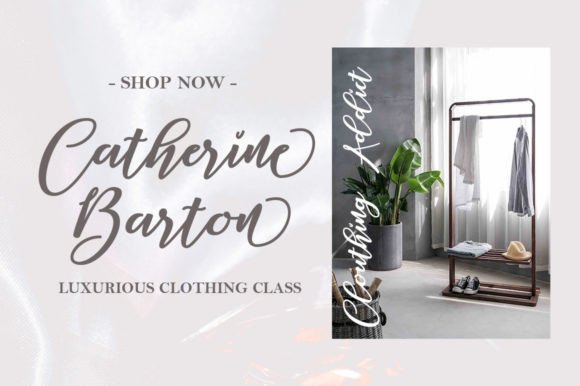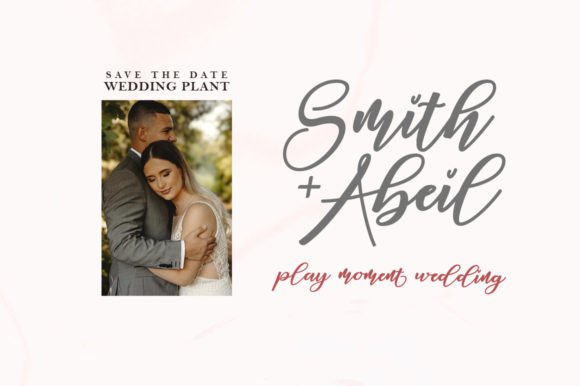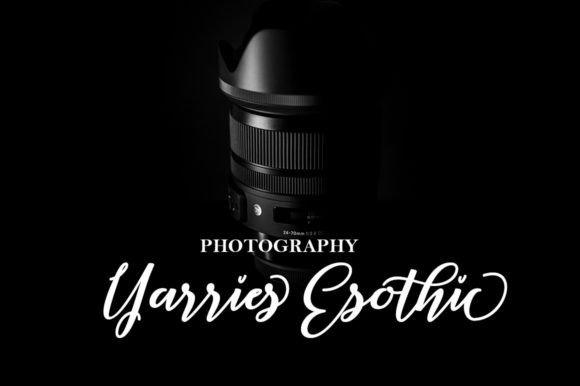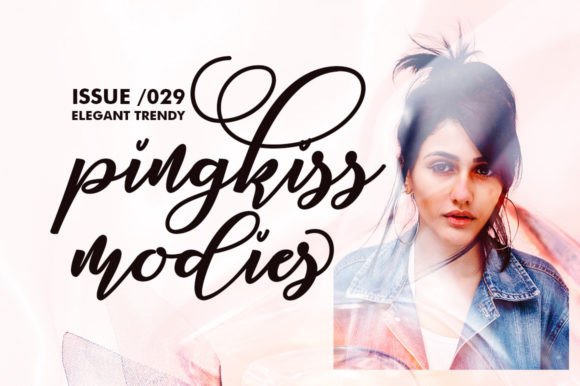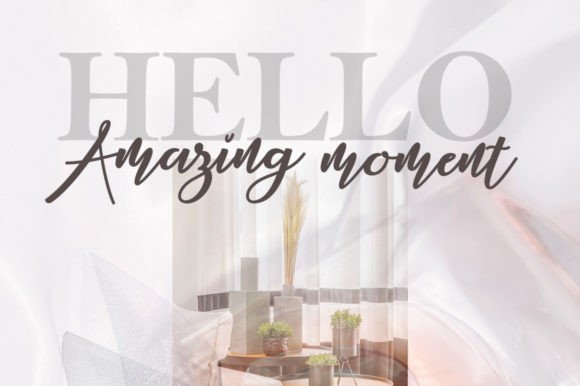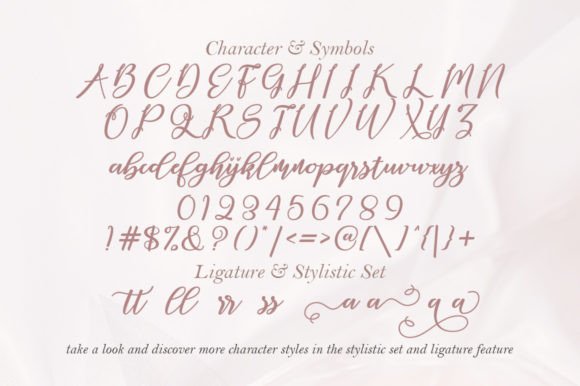
Introducing Ambelia Script Font: Elevate Your Designs with a Natural Handwritten Touch
Are you a designer or crafter looking for a unique and versatile font to elevate your creative projects? Look no further than Ambelia Script Font, a stunning natural handwritten font perfect for a wide range of applications. In this article, we’ll dive into the features and benefits of Ambelia Script, and explore how it can add a personal touch to your designs.
What is Ambelia Script Font?
Ambelia Script Font is a beautifully crafted, natural handwritten font designed to bring a touch of elegance and sophistication to your designs. With its flowing lines and organic feel, Ambelia Script is perfect for creating visually appealing and engaging content. Whether you’re working on a logo, invitation, social media post, or product packaging, this font is sure to make your designs stand out.
Key Features of Ambelia Script Font
- Natural Handwritten Style: Ambelia Script Font boasts a genuine handwritten look, making it perfect for designs that require a personal touch.
- Versatile: This font is suitable for a wide range of applications, including logos, invitations, stationery, wedding designs, social media posts, advertisements, product packaging, and more.
- Easy to Read: Despite its elegant and cursive nature, Ambelia Script Font remains highly legible, ensuring your message is conveyed clearly.
Use Cases for Ambelia Script Font
Ambelia Script Font is an incredibly versatile font that can be used in various design projects. Here are some ideas to get you started:
- Logos and Branding: Create a unique and memorable logo for your business or personal brand with Ambelia Script Font.
- Wedding Designs: Add a touch of romance and elegance to your wedding invitations, stationery, and decorations with this beautiful font.
- Social Media Posts: Elevate your social media game with eye-catching posts and stories featuring Ambelia Script Font.
- Product Packaging: Stand out on store shelves with product packaging that features Ambelia Script Font.
- Photography and Watermarks: Add a professional touch to your photos with Ambelia Script Font used as watermarks.
Benefits of Using Ambelia Script Font
By incorporating Ambelia Script Font into your designs, you’ll enjoy several benefits, including:
- Unique and Creative: Ambelia Script Font will help your designs stand out from the crowd and give them a distinctive look.
- Elegant and Sophisticated: This font exudes elegance and sophistication, making it perfect for high-end designs and luxury brands.
- Time-Saving: With Ambelia Script Font, you can create stunning designs quickly and efficiently, saving you time and effort.
In conclusion, Ambelia Script Font is a versatile and elegant natural handwritten font perfect for designers and crafters looking to elevate their creative projects. With its wide range of applications and benefits, Ambelia Script Font is sure to become a staple in your design toolkit.